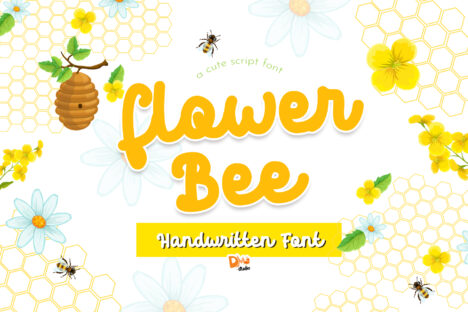
Flower Bee Font
Flower Bee Font is a whimsical and enchanting typeface that brings the beauty of nature and the charm of bees into your designs. With its elegant and playful letterforms, this font is perfect for a variety of creative projects, including wedding invitations, garden-themed posters, branding, and more. Add a touch of natural elegance and whimsy to your work with the Flower Bee Font.
1. Whimsical and Enchanting Design: The Flower Bee Font features whimsical and enchanting letterforms that add a touch of nature-inspired elegance to your text.
2. Nature and Garden-Themed: Ideal for projects that celebrate nature, gardens, and the beauty of bees, perfect for wedding invitations, event branding, and botanical designs.
4. Uppercase and Lowercase Letters: Both uppercase and lowercase letters included, providing creative flexibility.
5. Punctuation and Symbols: Comprehensive set of punctuation marks, numerals, and symbols for consistent and versatile use.